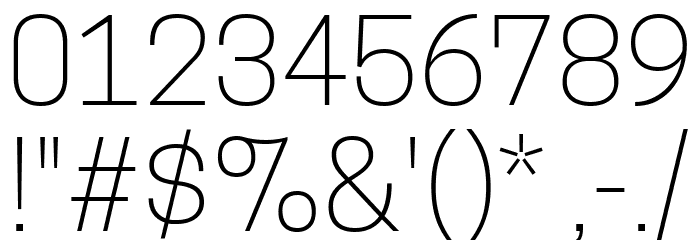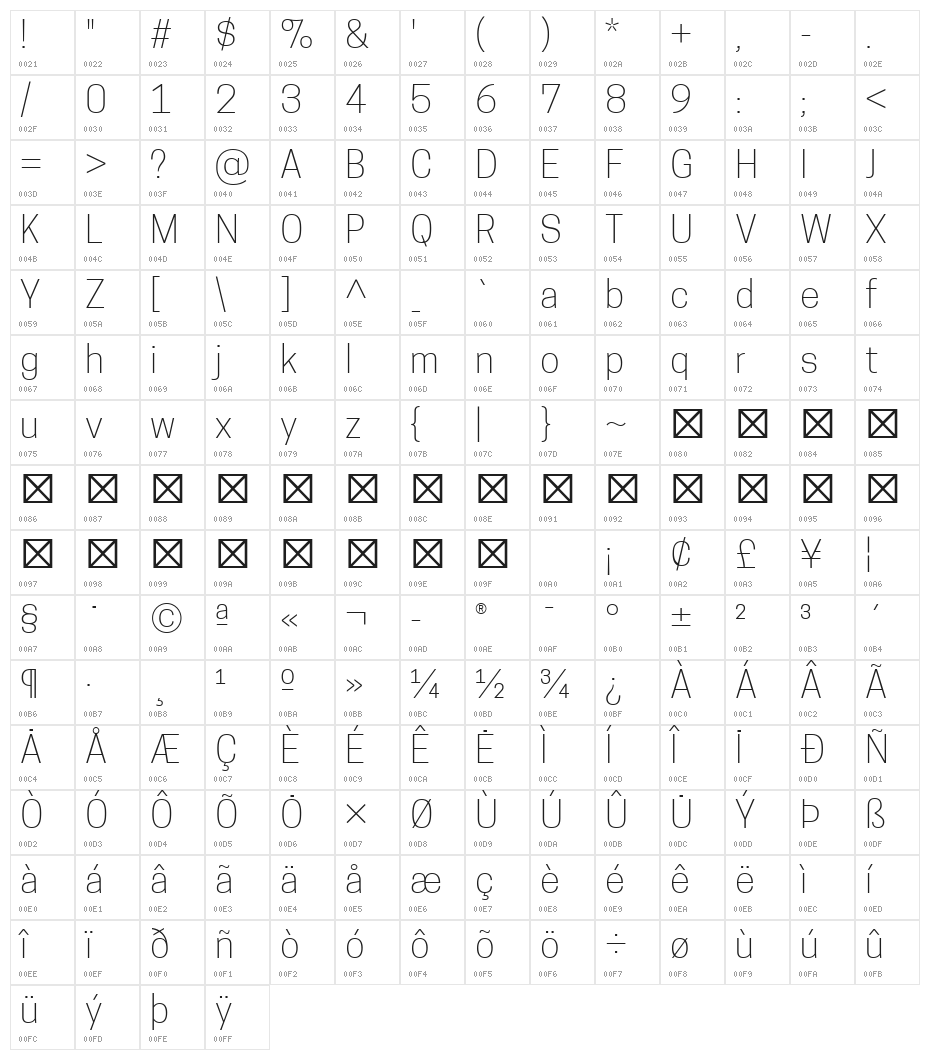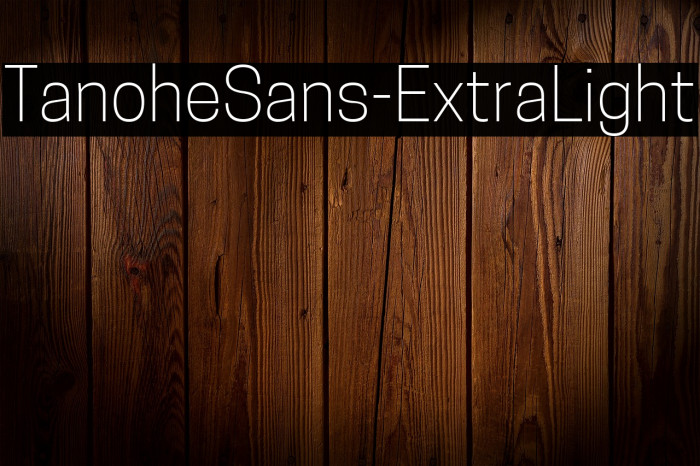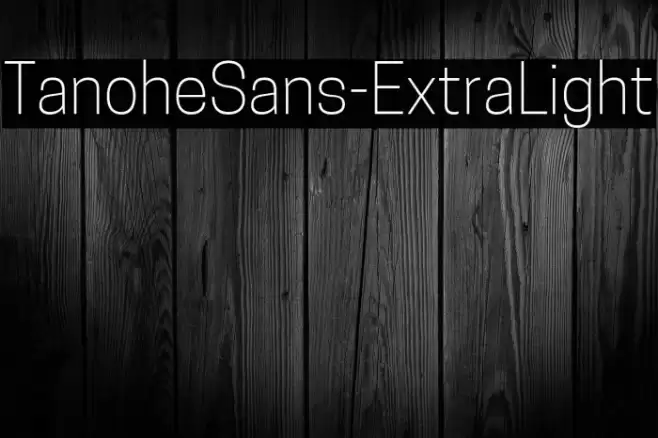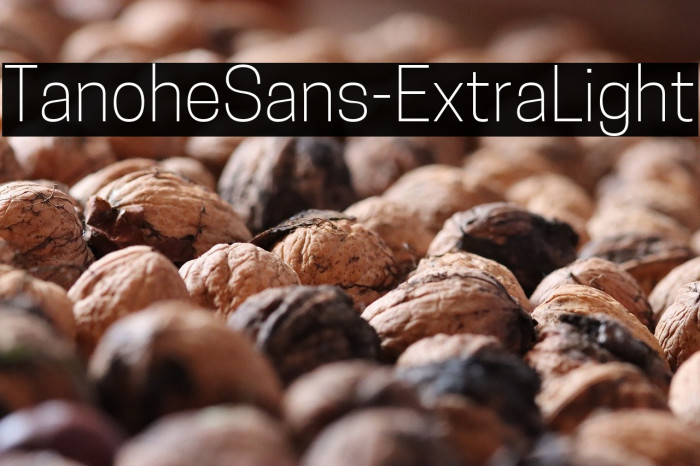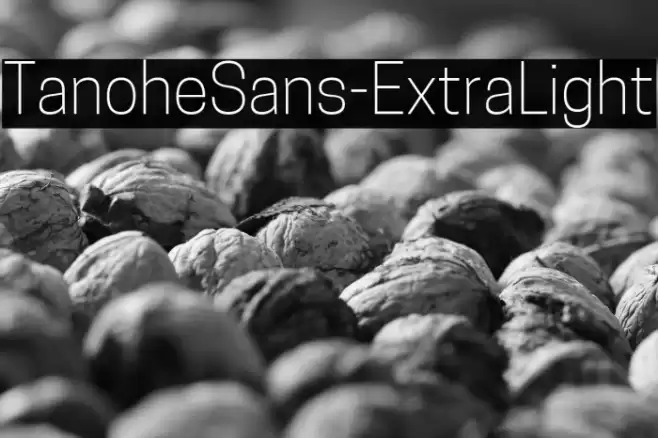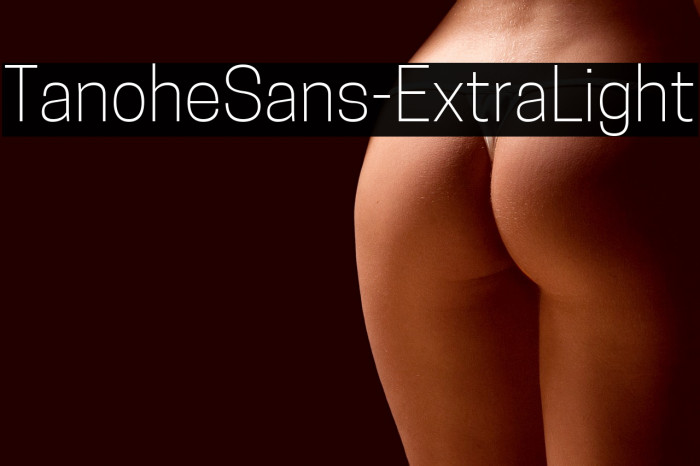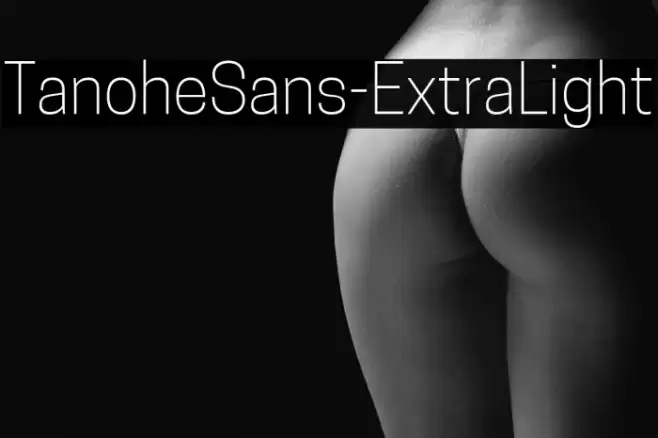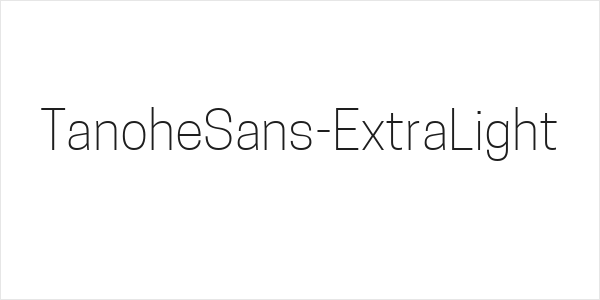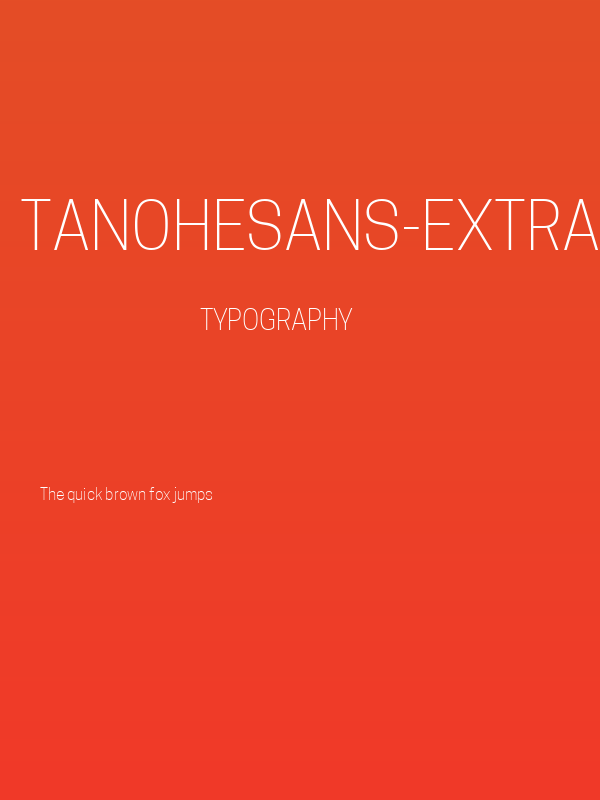
TanoheSans-ExtraLight Font
TanoheSans-ExtraLight Description
This typeface features a clean, minimalist design with thin, uniform strokes that give it an airy and modern appearance. The characters are well-proportioned, with a consistent height and width that enhances readability. The uppercase and lowercase letters maintain a harmonious balance, while the numerals and special characters are designed to blend seamlessly with the alphabet. The overall look is sleek and sophisticated, making it suitable for contemporary design projects.
| Proposed Projects | Ideal for use in digital interfaces, branding, and editorial design where a clean and modern aesthetic is desired. |